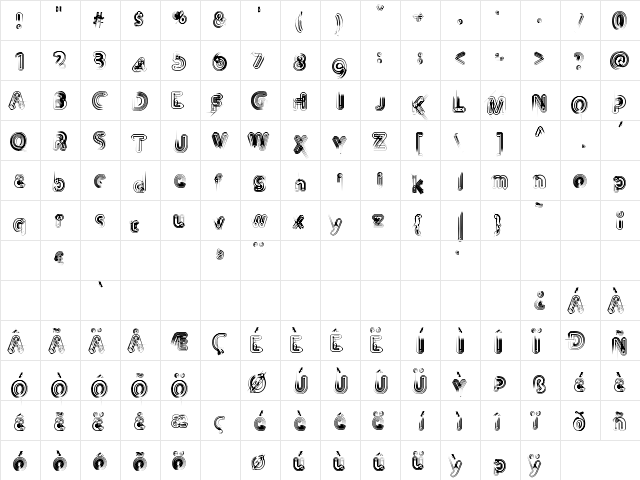
TH3 MACHINE Regular
Design Context for TH3 MACHINE Typeface
TH3 MACHINE is a composed and adaptable typeface that performs quietly and consistently across a wide range of design contexts.